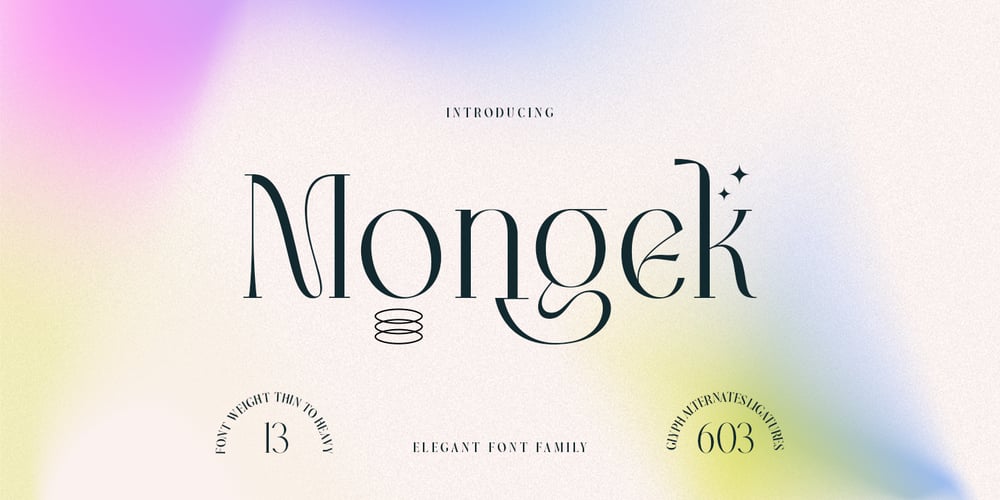
Mongek Font Family was designed by Alit Suarnegara and published by Alit Design. Mongek contains 13 styles and family package options. Introducing Mongek Typeface is designed with a modern concept that is simple and dynamic. The serif style adopted by the Mongek font is a 2022 style font, has a unique swash alternative, has a large selection of ligatures. In addition.Serif typefaces such as “Mongek typeface” are very easy to apply to any design, especially those with an elegant and smooth concept, besides that this font is very easy to use both in design and non-design programs because everything changes and glyphs are supported by Unicode (PUA).The Mongek typeface contains 603 glyphs with many unique and interesting alternative options. Plus, there’s a cool serif font family for header and description text from Thin to heavy. In the poster preview all the letters are in the Mongek typeface.